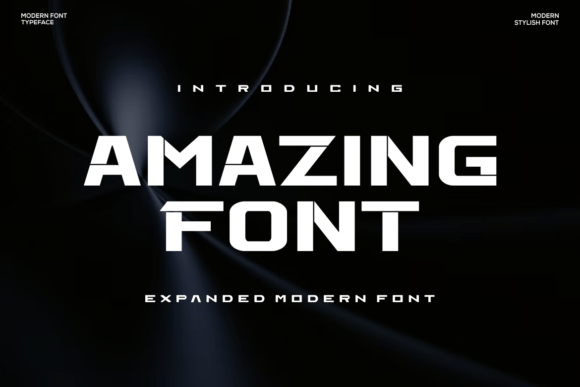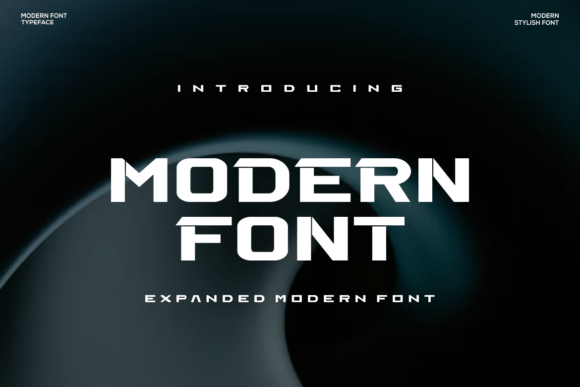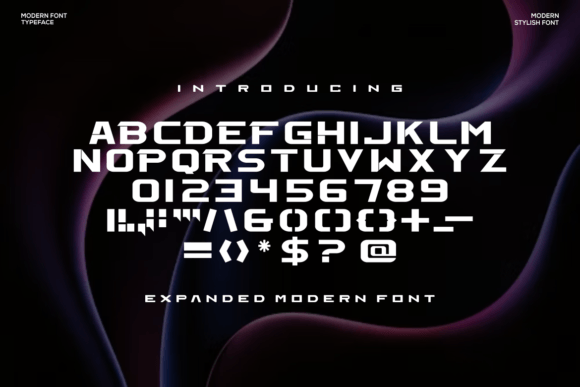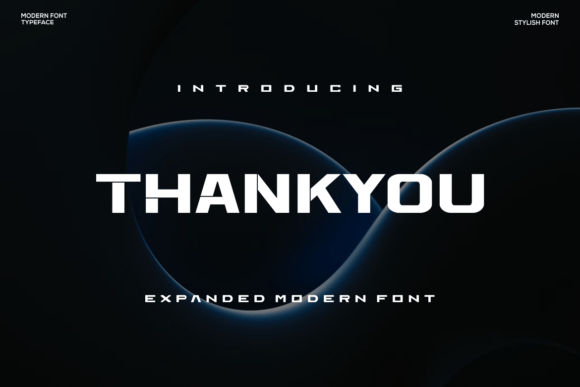
Introducing Dengki Font: The Modern Display Font You Need
Have you ever been in the middle of a design project, and suddenly, you’re stuck on finding the perfect font? I recall a recent experience where I was working on a branding project for a trendy coffee shop. The client wanted a bold, eye-catching font that would reflect their modern and vibrant personality. After hours of searching, I stumbled upon **Dengki Font**, and it instantly became the star of the show! In this article, I’ll share my excitement about this fantastic font and explore its features, usage, and alternatives.
A Personal Review of Dengki Font
What I Love About Dengki Font ✨
- ✅ Bold and Authentic: Dengki Font is a bold and authentic display font that makes a statement. Its modern design is perfect for creating eye-catching logos, t-shirt prints, and creative products.
- ✅ Versatile: This font is extraordinary in a variety of contexts, from branding projects to social media graphics.
- ✅ Easy to Read: Despite its bold nature, Dengki Font remains clear and easy to read, even at smaller sizes.
- ⚠️ Limited Use Cases: While Dengki Font is amazing for display purposes, it might not be the best choice for body text or lengthy content.
- ⚠️ Glyph Limitations: Some users might find the glyph selection a bit limited, but this can also be seen as a deliberate design choice to maintain the font’s bold and modern feel.
The Backstory Behind Dengki Font
Dengki Font was created with the goal of providing a bold, modern display font that could capture attention and convey confidence. Inspired by contemporary design trends and a passion for typography, the Dengki Font team aimed to craft a font that would be both versatile and visually striking. Whether you’re a designer working on a branding project or a crafty hobbyist creating unique products, Dengki Font is designed to help you make a statement.
Q: What is Dengki Font best used for?
A: Dengki Font is best used for display purposes, such as logos, t-shirt printing, creative products, and other branding projects where a bold, modern look is desired.
Q: Can I use Dengki Font for body text?
A: While Dengki Font is primarily designed for display use, it can be used for short paragraphs of body text. However, for lengthy content, a more readable font might be preferable.
Q: Does Dengki Font support OpenType features?
A: Yes, Dengki Font supports OpenType features, including stylistic alternates and glyphs, which can be accessed in compatible design software like Adobe Photoshop and Illustrator.
Q: Is Dengki Font suitable for digital use?
A: Absolutely! Dengki Font is designed to be versatile and works well in both digital and print contexts, making it perfect for social media graphics, websites, and more.
| Font Name | Dengki Font |
| Author | agusbolang1616 |